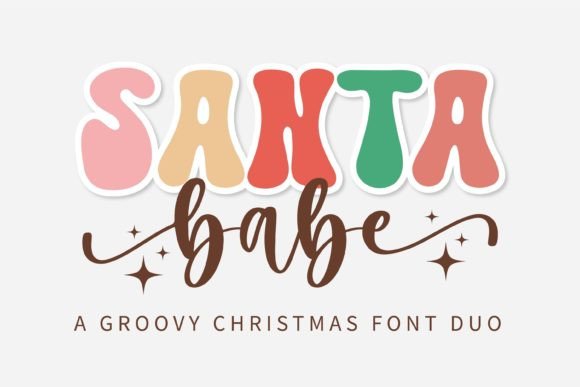
Introducing Santa Babe Duo Font - the ultimate font for cake topper cricut projects and any other groovy design that requires a retro touch! Created by BitongType, this cool duo font is the perfect choice for anyone looking to make an impact with their designs.
Featuring a unique display and script font family, Santa Babe Duo Font offers endless possibilities for creative expression. The PUA encoding makes accessing all the glyphs and swashes a breeze, giving you the freedom to create stunning designs that truly stand out.
With Santa Babe Duo Font, you'll be able to transport your audience back in time to the groovy era of the 60s and 70s. This font family is guaranteed to bring a smile to anyone's face, and its retro charm is sure to captivate and inspire.